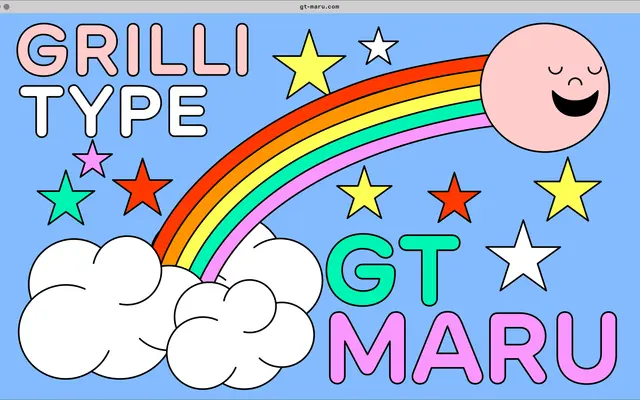
GT Maru
Grilli Type · Thierry Blancpain · 2021
Thierry Blancpain's rounded sans inspired by Japanese signage, with Mono, Mega and Emoji companions.
A rounded sans by Thierry Blancpain (with production by Huw Williams on Mega and Emoji work by Grilli Type with Anya Danilova), released in 2021 and offered in 25 styles. Grilli pitch it as an ode to rounded English characters found on Japanese signage, combining the warmth of sign painting with the mechanical quality of engraved letters. The system runs across GT Maru, Mono and Mega, with Mini, Midi and Maxi sizes plus colour and black-and-white Emoji.
Grilli describe it as an ode to rounded English characters on signage across Japan, exploring roundness (maru) in the Latin alphabet. Combines the warmth and flow of sign painting with the mechanical quality of engraved letters.